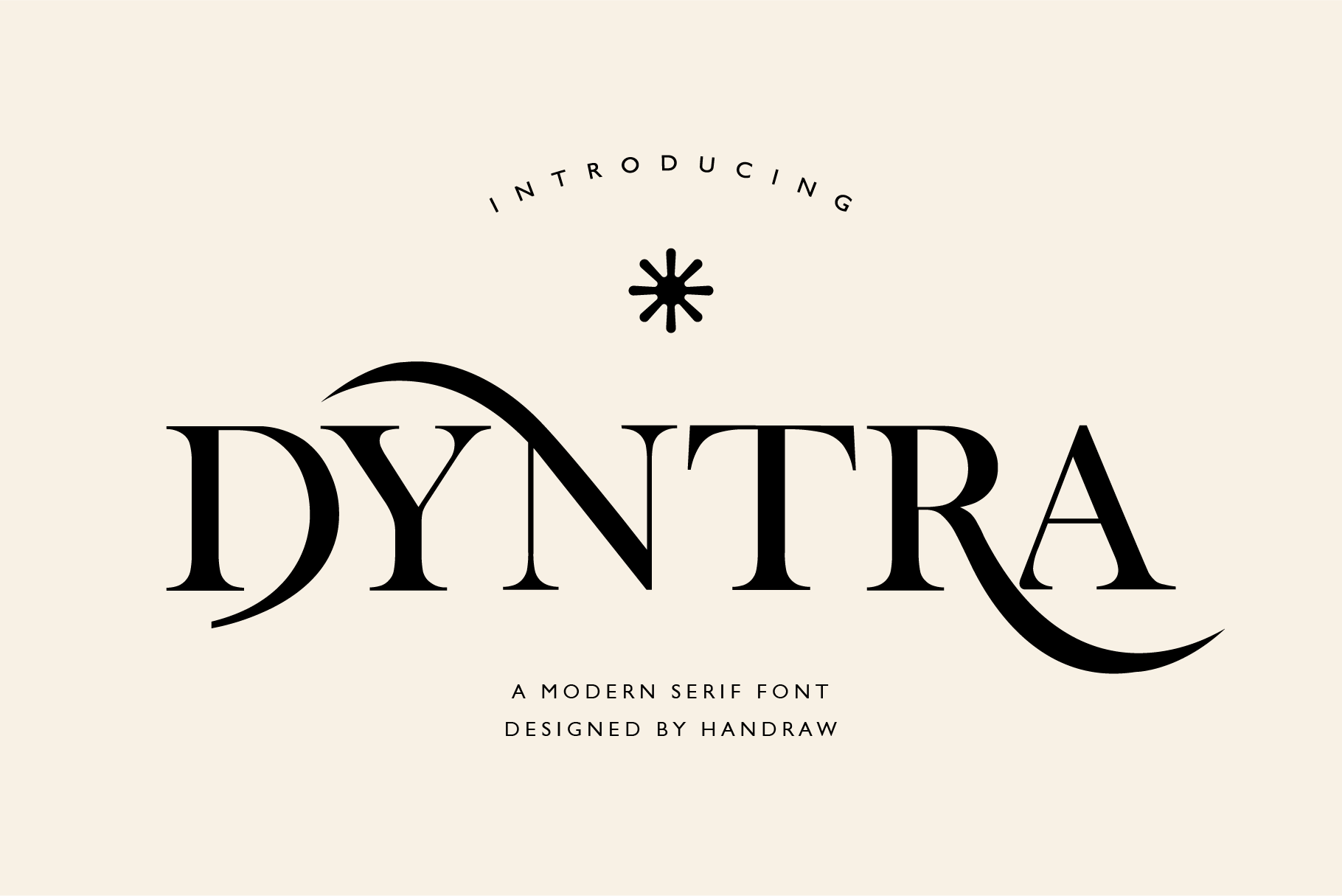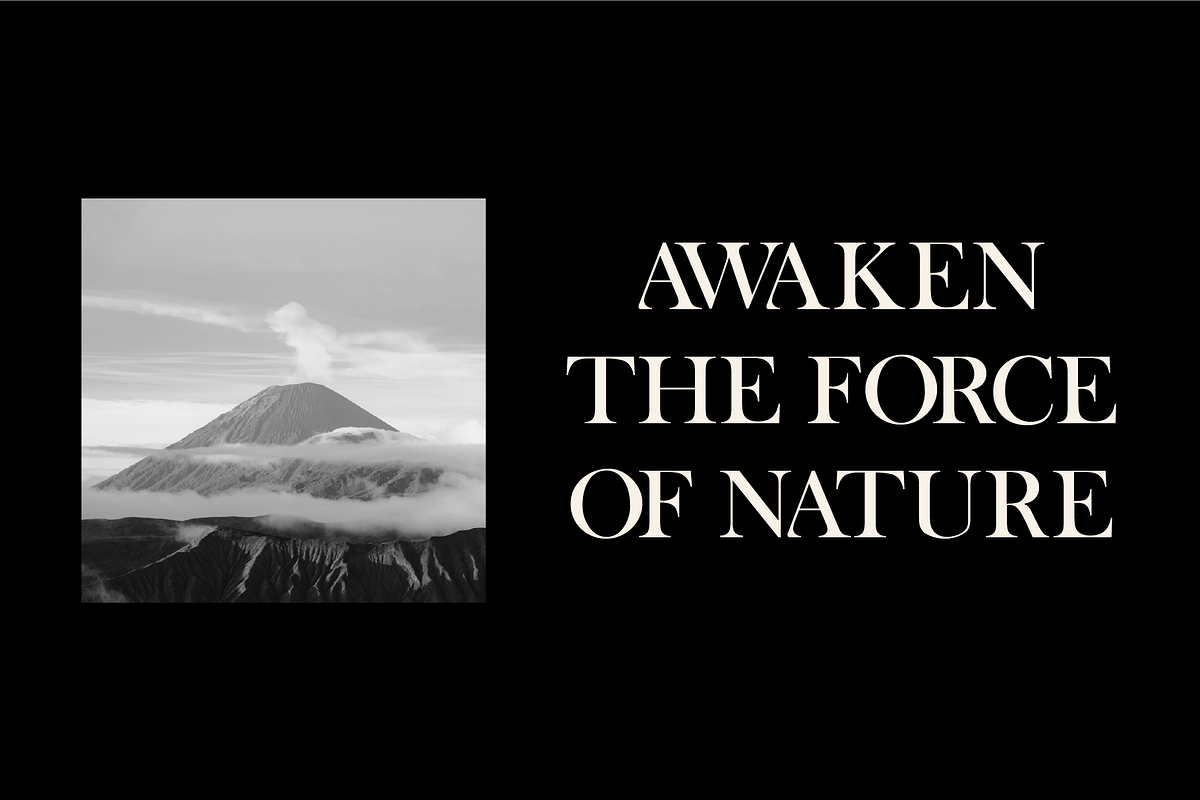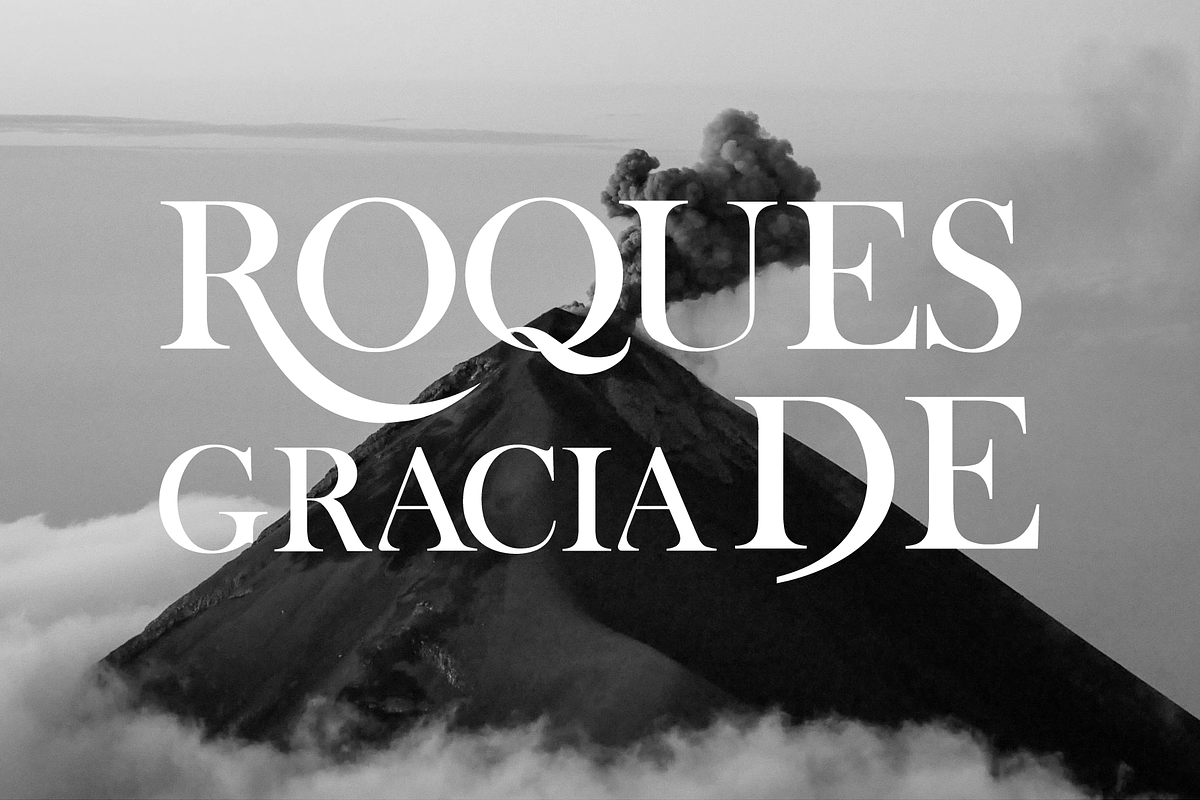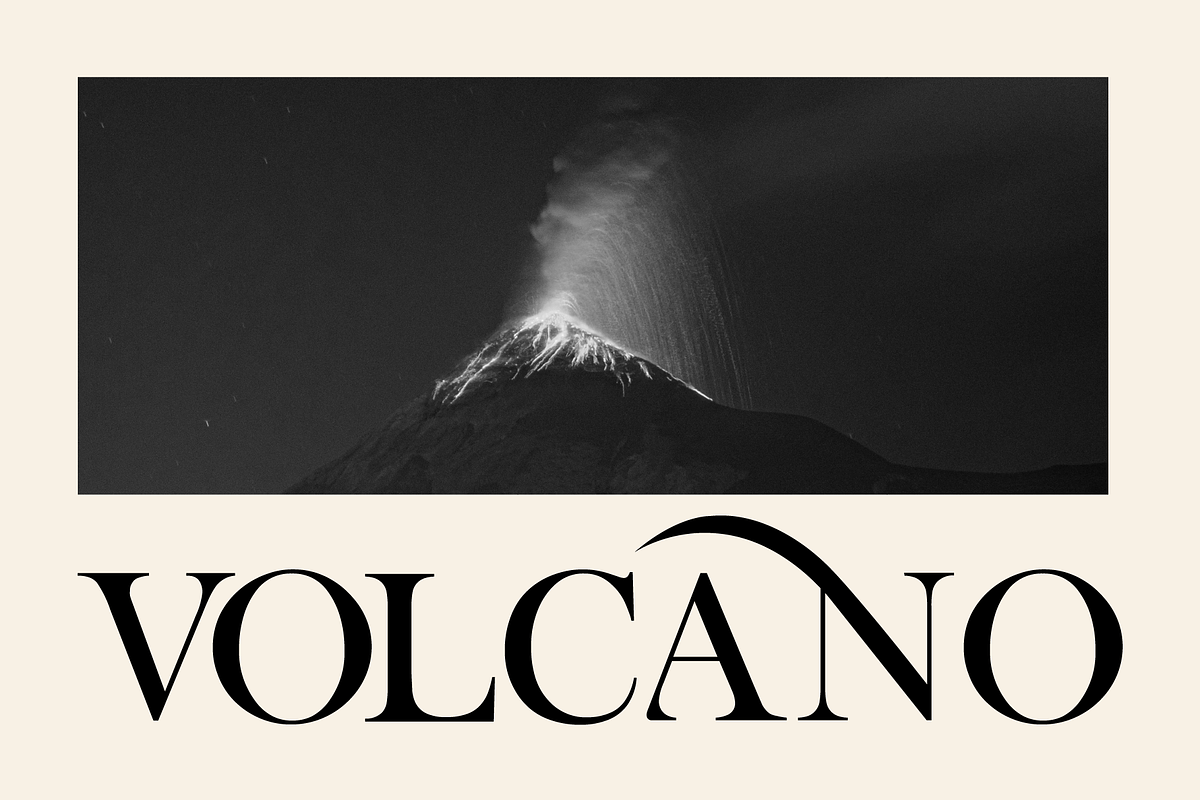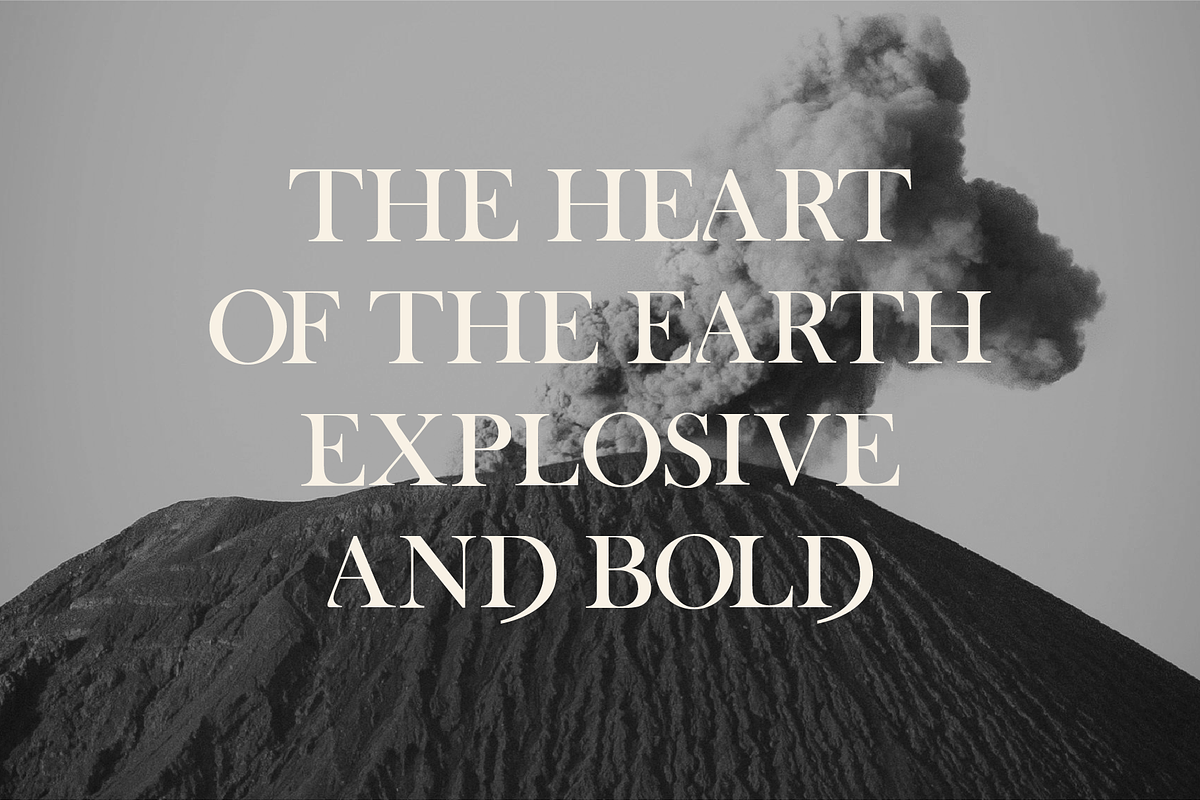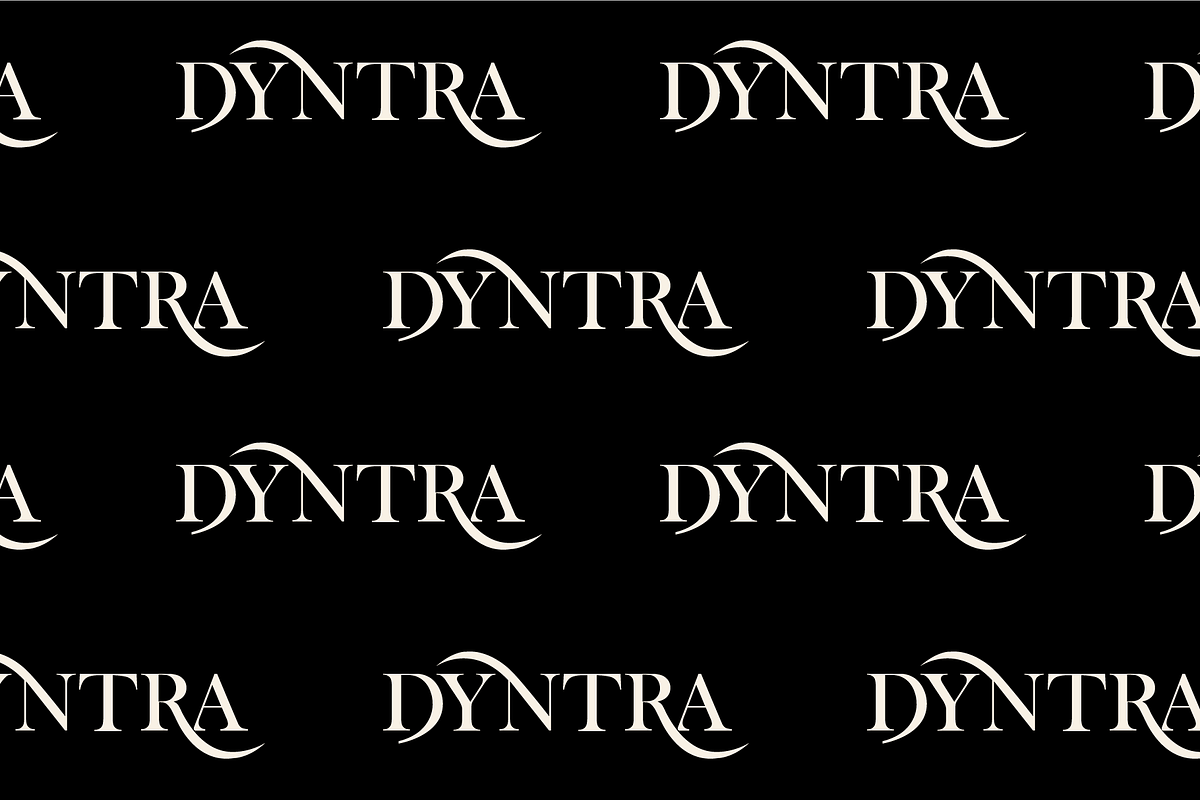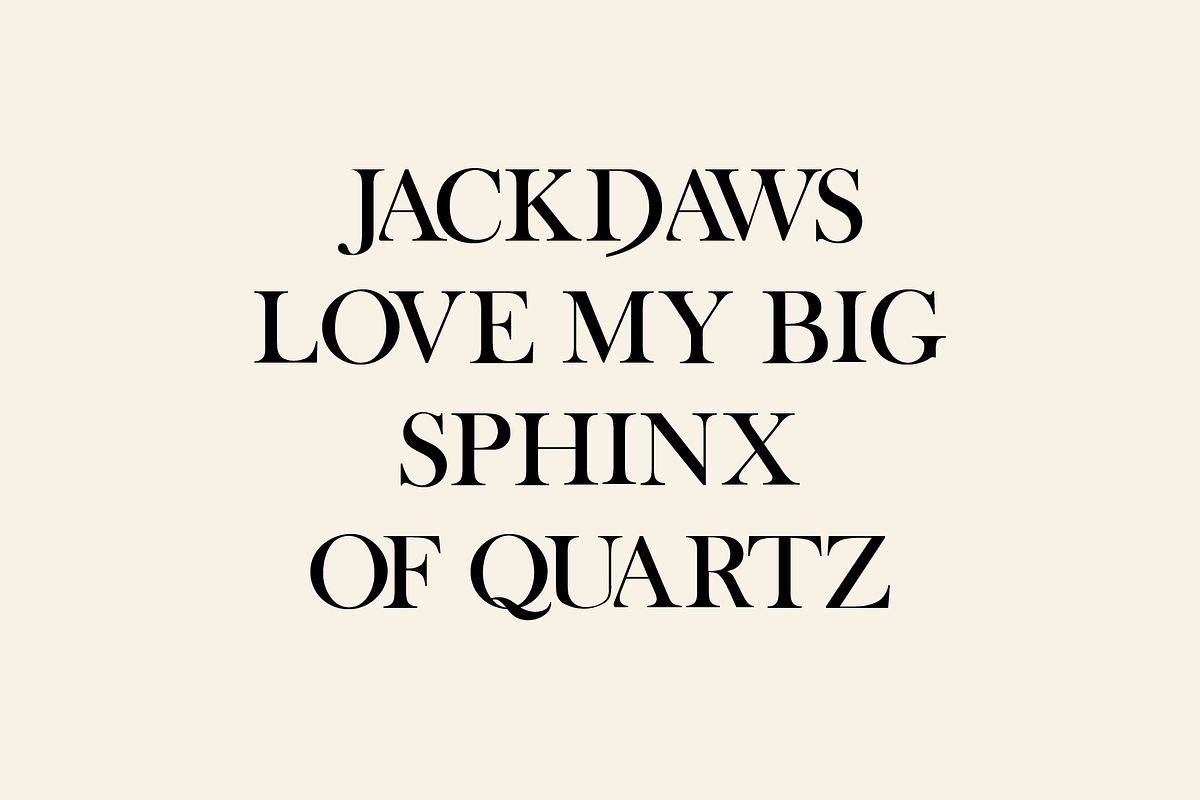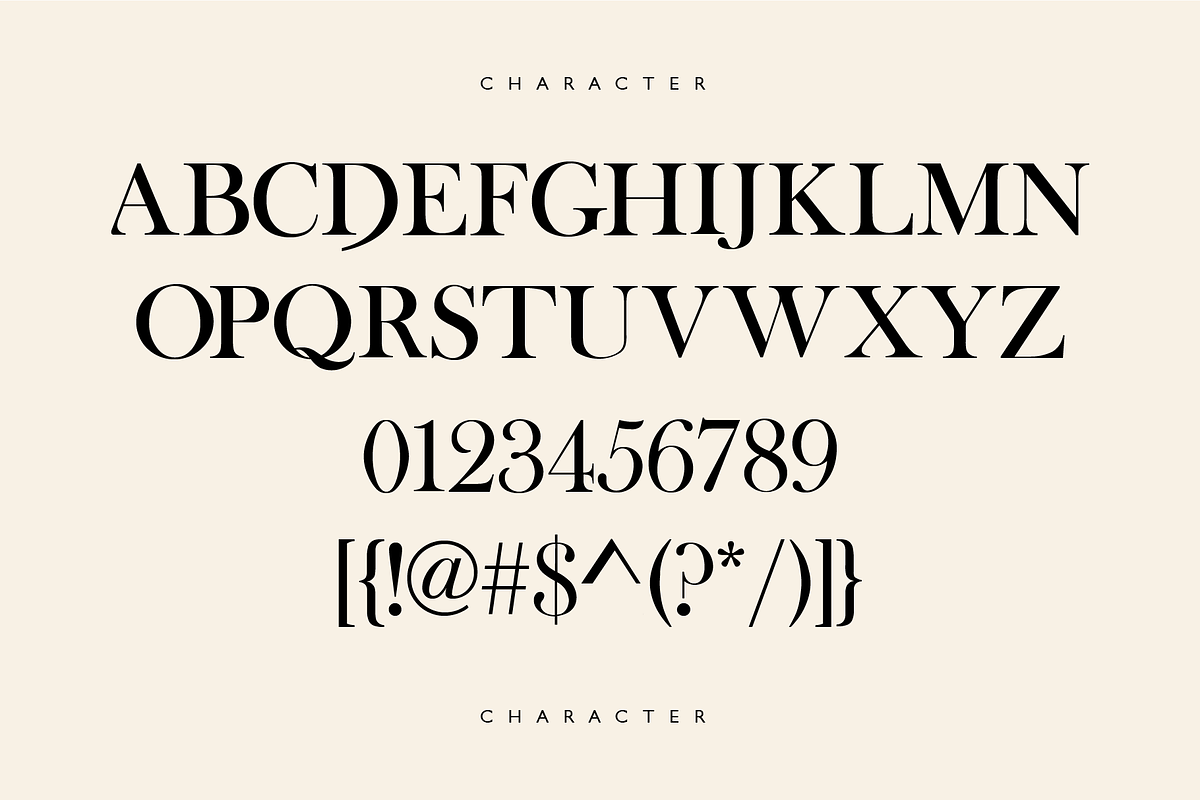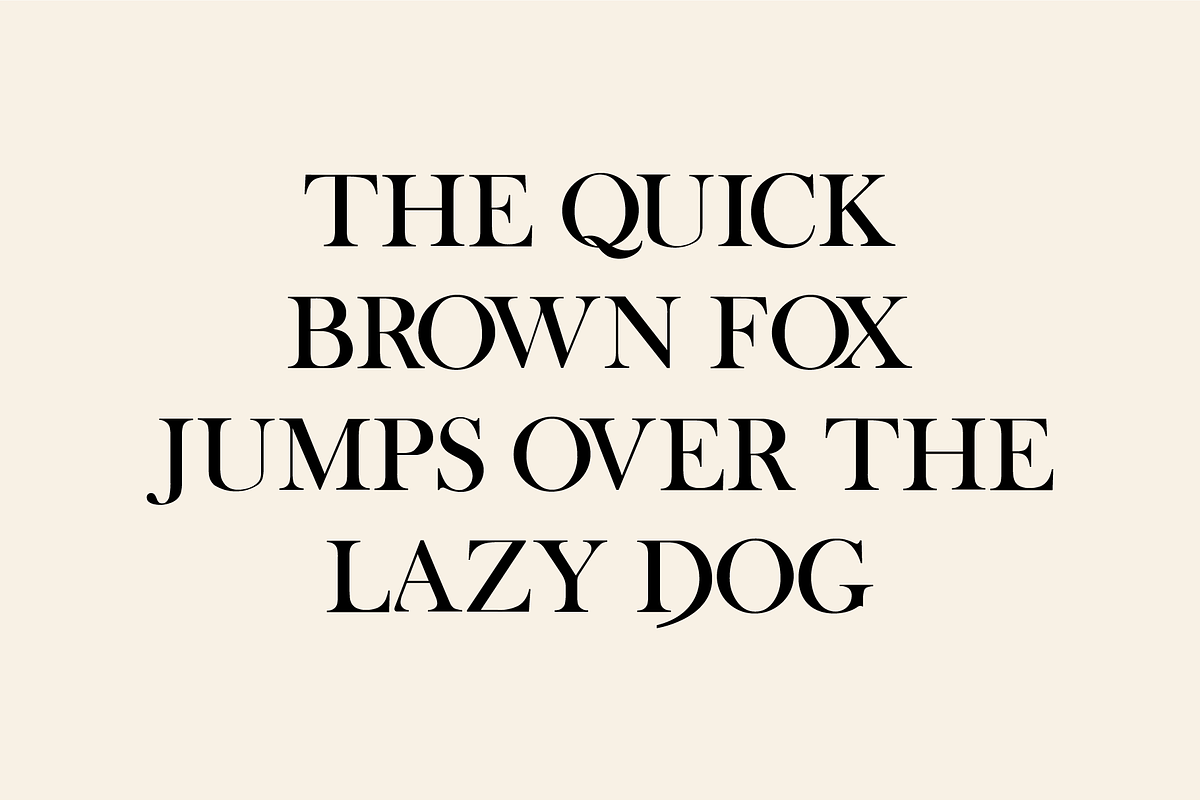
Dyntra - Modern Serif Font
Dyntra is a serif font with a refined and classic design. Its elegant strokes and well-defined serifs give it a timeless and sophisticated look, making it ideal for projects that require a touch of professionalism and tradition. The font’s balanced letterforms enhance readability, making it perfect for both print and digital media, particularly for longer text passages, formal documents, and high-end branding materials.